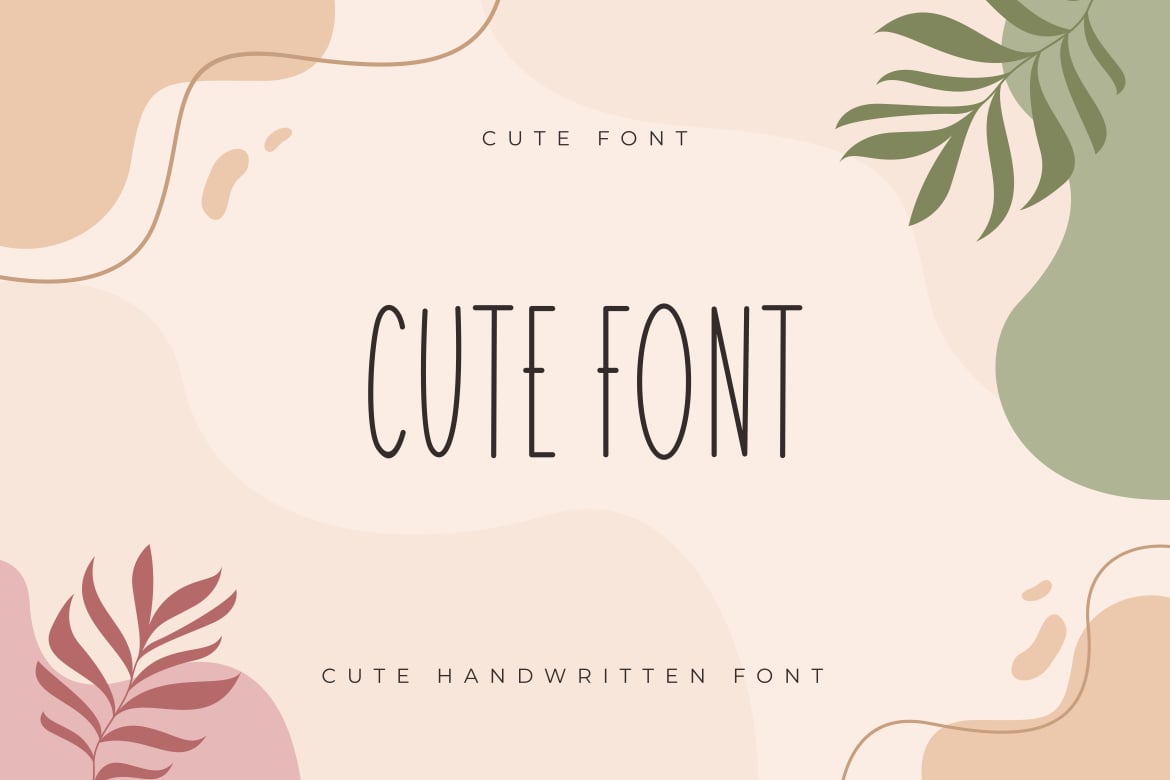
Livescuted Font
Introducing our new product Livescuted Font – Modern Font
Livescuted Font – Modern Font is a bold and authentic display font. The font is suitable for any branding project like logo, esport, and many more. outstanding in a wide range of contexts.